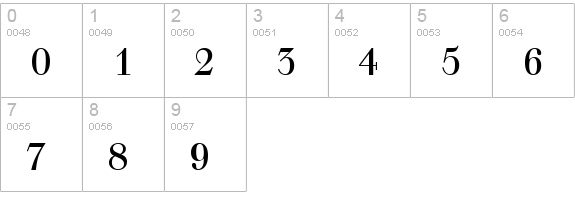
Walbaum-Original-Regular Font Details
Walbaum-Original-Regular is the standard, neutral variant in the Walbaum typeface family \xE2\x80\x94 well suited to general body text, paragraphs, and standard typographic work.
Walbaum-Original-Regular is a timeless and elegant font that exudes sophistication and style. Its classic serif design captures the essence of traditional typography while maintaining a modern appeal. The clean lines and balanced proportions make it versatile for a wide range of design projects, from editorial layouts to branding materials. This font is a must-have for designers looking to add a touch of refinement to their work. Whether used for headlines, body text, or logos, Walbaum-Original-Regular delivers a sense of sophistication and professionalism. Its readability and legibility make it a reliable choice for any project. Best of all, Walbaum-Original-Regular is available for free download at FontsMarket.com. This means you can easily access this premium font without any cost, making it a valuable addition to your font library. Don't miss out on the opportunity to enhance your designs with the timeless beauty of Walbaum-Original-Regular. Download it today and elevate your projects to the next level.